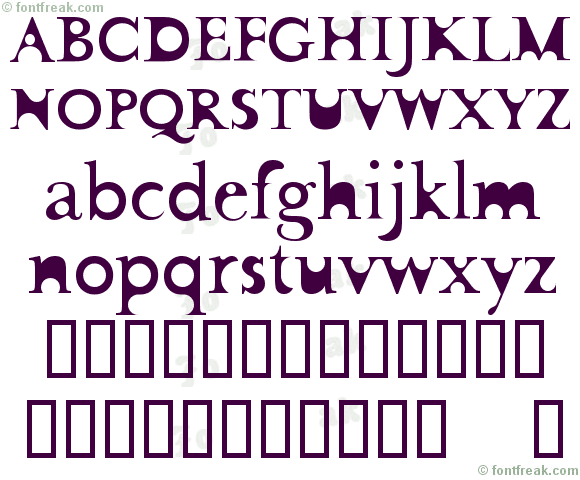
Flotsam Carnage
About Carnage
Carnage by Flotsam is a captivating display font that encapsulates a unique blend of creativity and boldness. Launched in 1994, this shareware typeface boasts a distinctive design that stands out in various applications. The font features an artistic, decorative style characterized by its playful curves and sharp edges, making it an eye-catching choice for projects that require a touch of drama.
Visually, Carnage presents a medium stroke weight with a moderate contrast that enhances its readability while maintaining an artistic flair. The spacing is well-balanced, allowing for a cohesive look that flows seamlessly across different text sizes. The decorative elements, including exaggerated serifs and playful flourishes, add a whimsical touch that captures attention without overwhelming the reader.
Carnage is an ideal choice for a variety of creative applications. It shines in movie posters, where its bold presence can convey excitement and intrigue. Additionally, it works beautifully for event flyers, particularly those for music festivals or art exhibitions, where a vibrant and edgy aesthetic is desired. Restaurant menus can also benefit from this font, especially in contemporary settings that aim to create a unique dining experience. Furthermore, branding materials, such as logos and promotional graphics, can leverage the distinctive characteristics of Carnage to create memorable impressions.
What sets Carnage apart is its ability to blend artistic expression with functionality. Its unique design elements make it not just a font, but an integral part of visual storytelling, ensuring that your message resonates with the audience.